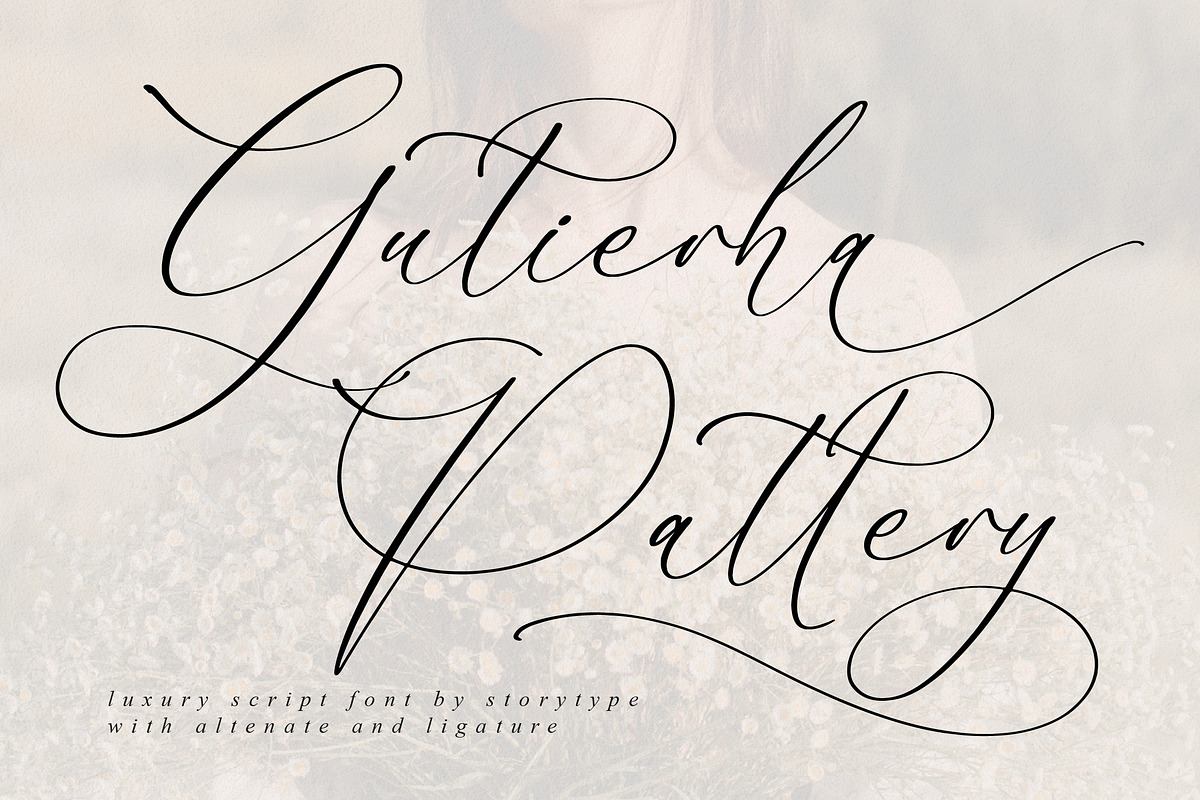
Elevate your designs with the sophisticated charm of Gutierha Pattery Luxury Script Font Free Download. This elegant script font features smooth, flowing letterforms with a luxurious, calligraphic style, perfect for high-end branding, wedding invitations, logos, and any project that requires a refined and graceful touch.
Gutierha Pattery offers a perfect balance between style and legibility, making it ideal for both modern and vintage-inspired projects. It includes uppercase and lowercase letters, numerals, punctuation, and multilingual support, offering flexibility to experiment with various beautiful and elegant layouts.